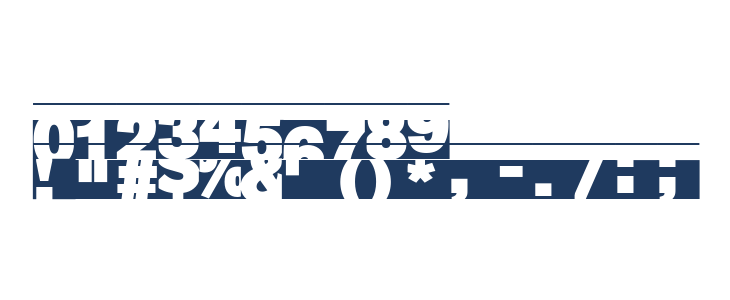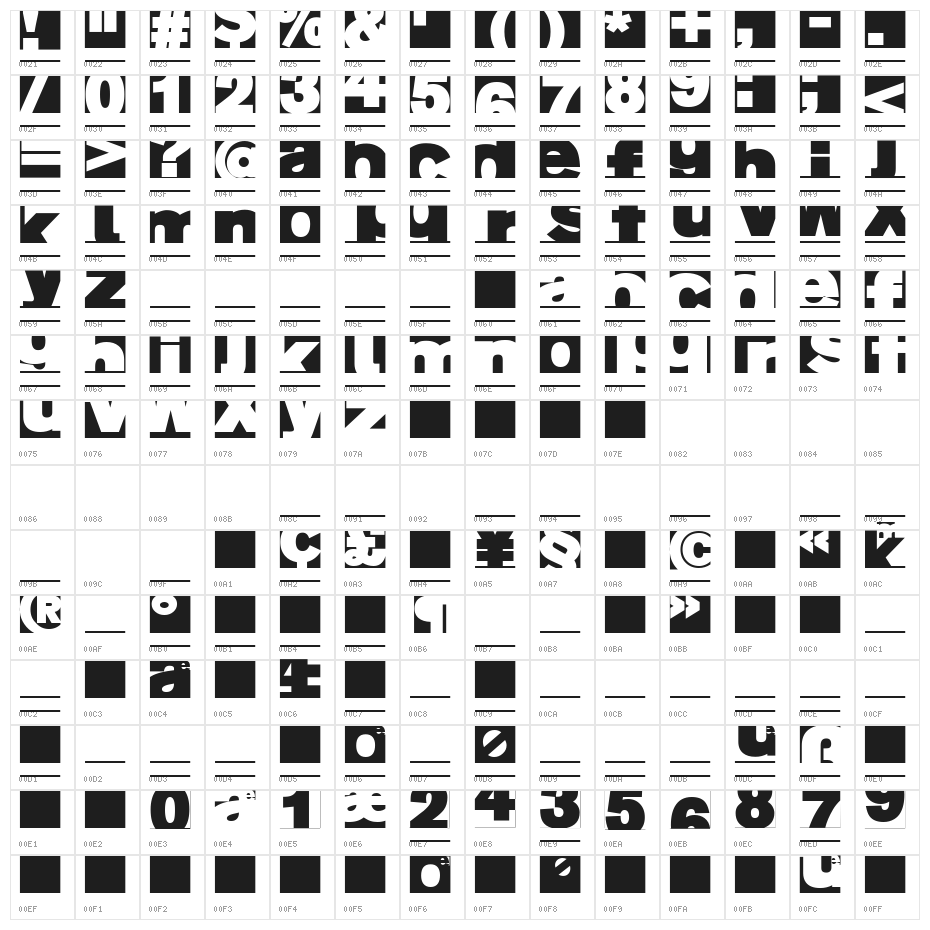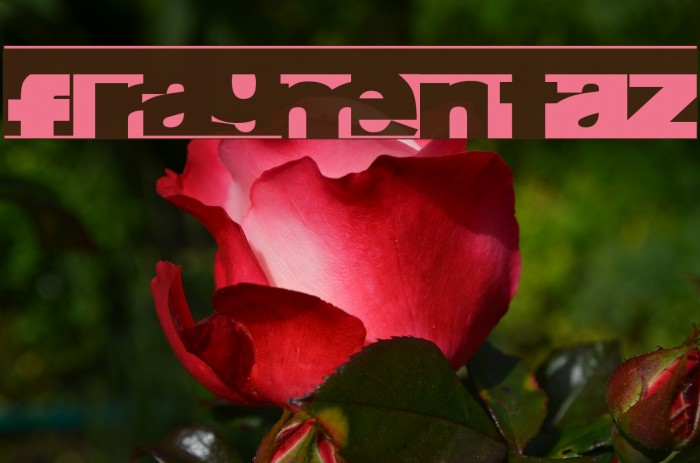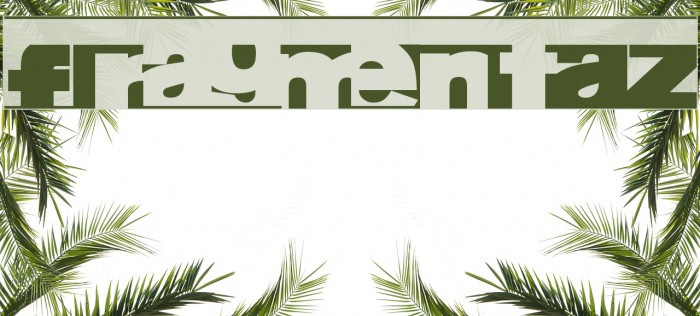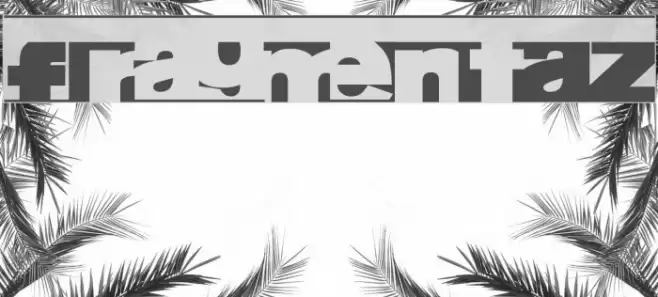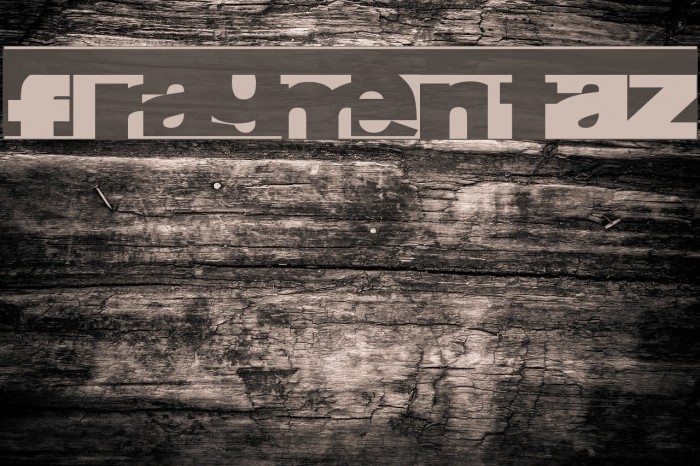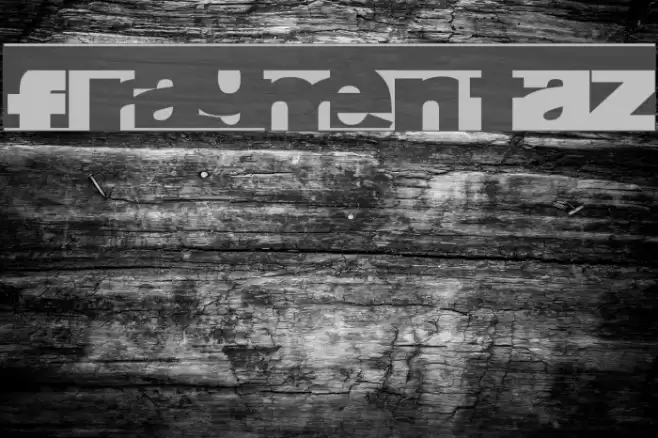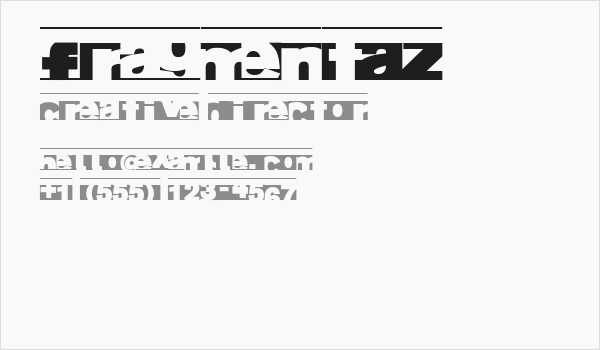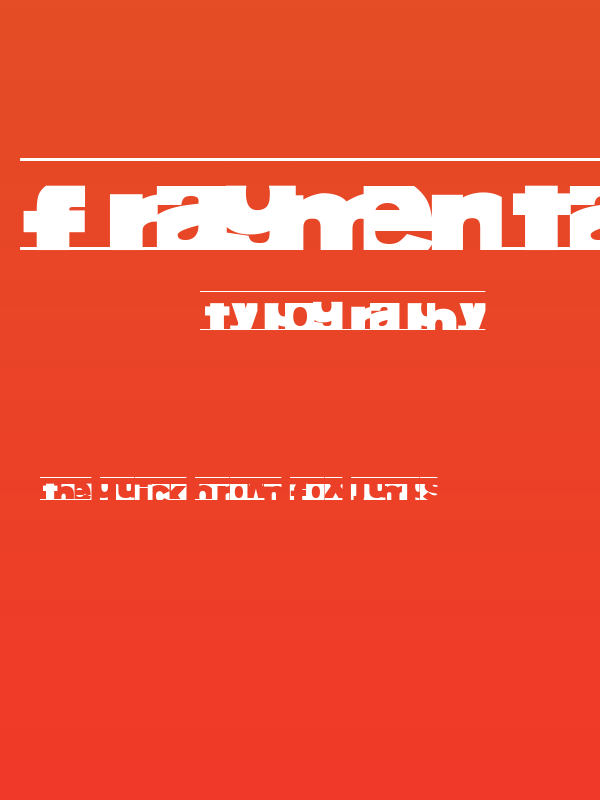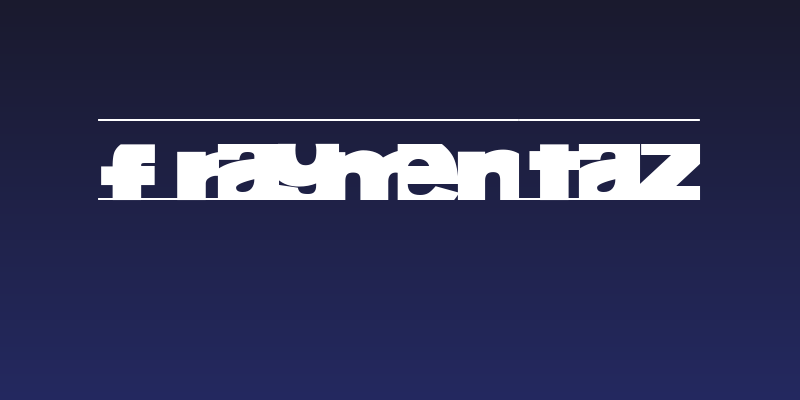
FragmentAZ Font
FragmentAZ Description
This font features a bold and modern design with a unique fragmented style. Each character is composed of solid, block-like shapes that are partially cut or divided, creating a striking visual effect. The uppercase and lowercase letters maintain a consistent width, contributing to a uniform appearance. The numbers and special characters follow the same fragmented aesthetic, ensuring cohesion across all elements. This font's distinctive look makes it ideal for projects that require a strong visual impact.
| Proposed Projects | Ideal for branding, posters, headlines, and any project needing a bold, modern aesthetic. |